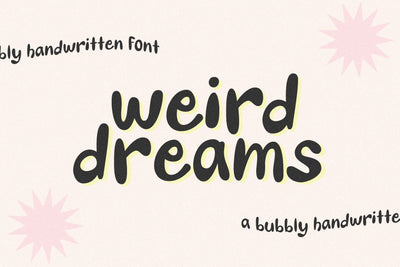
Weird Dreams - Bubbly Handwritten Font
Weird Dreams is a handwritten font that is sure to bring uniqueness and nostalgic fun to your designs! The letters are bubbly and a bit loud.